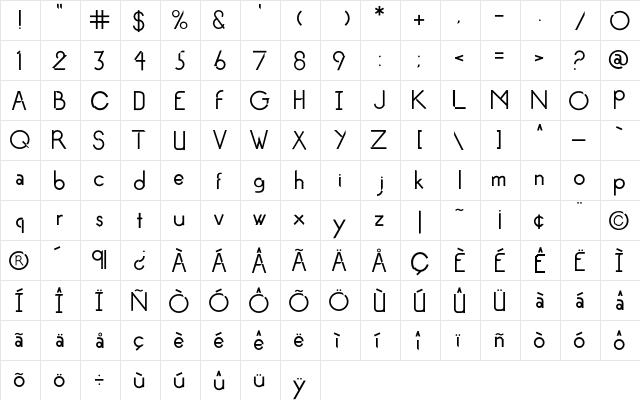
Imbalance Regular
Design Context for Imbalance Typeface
Imbalance takes a measured approach to typography — its balanced proportions and neutral character make it a reliable workhorse for both digital and print work.